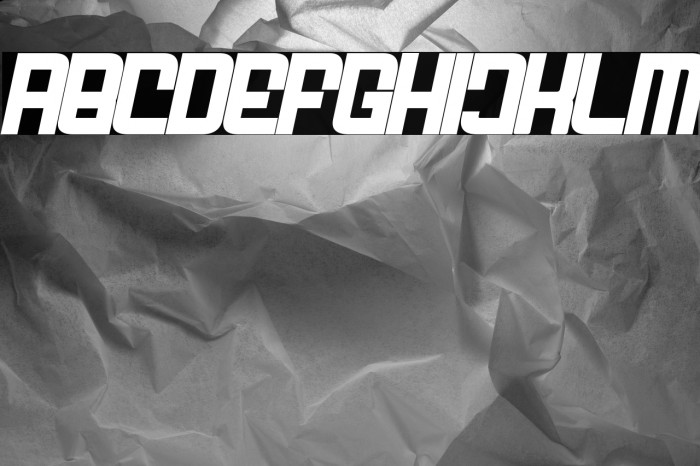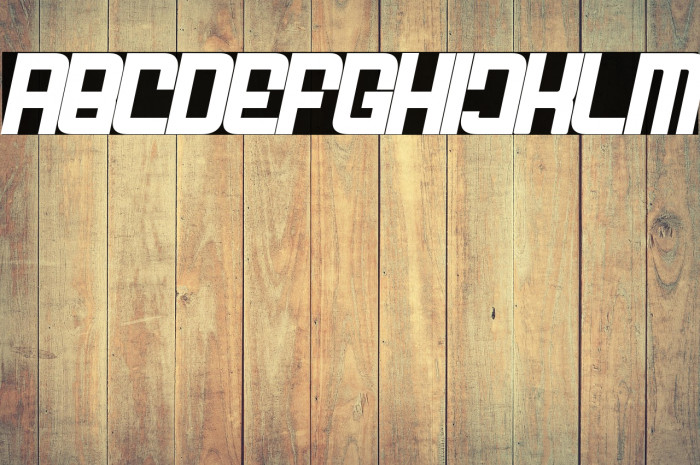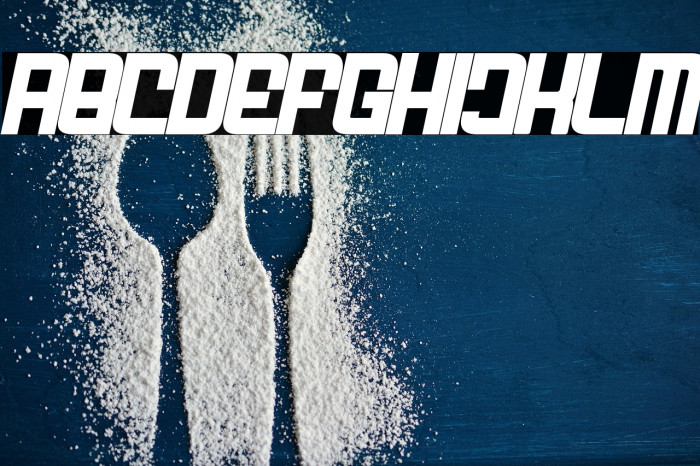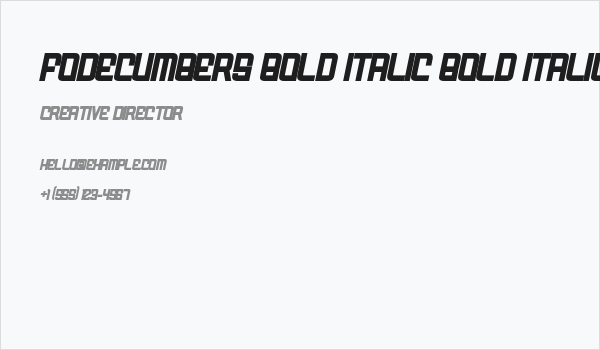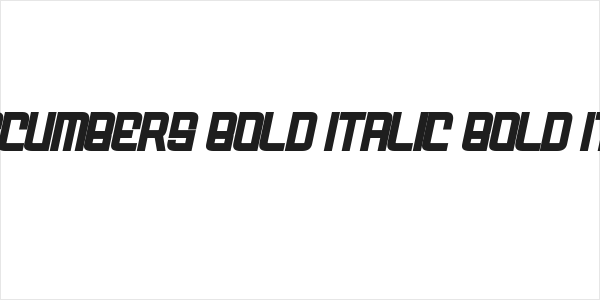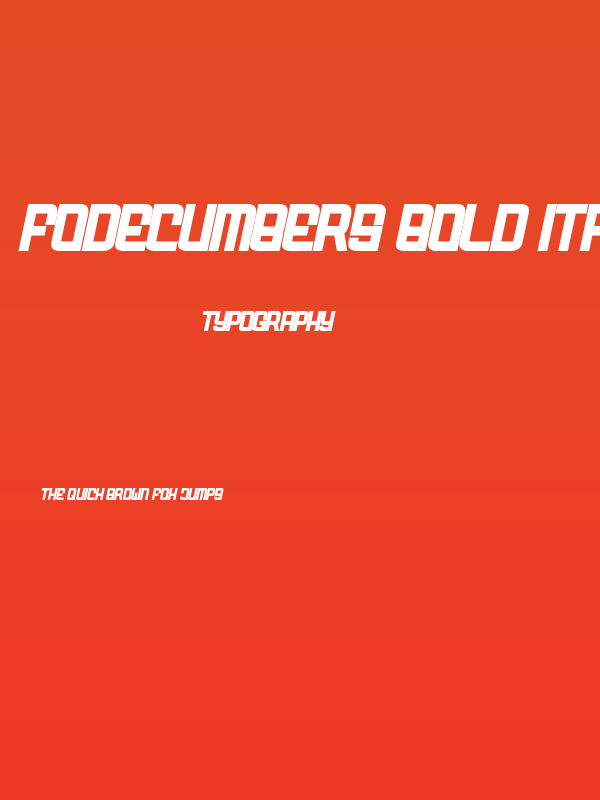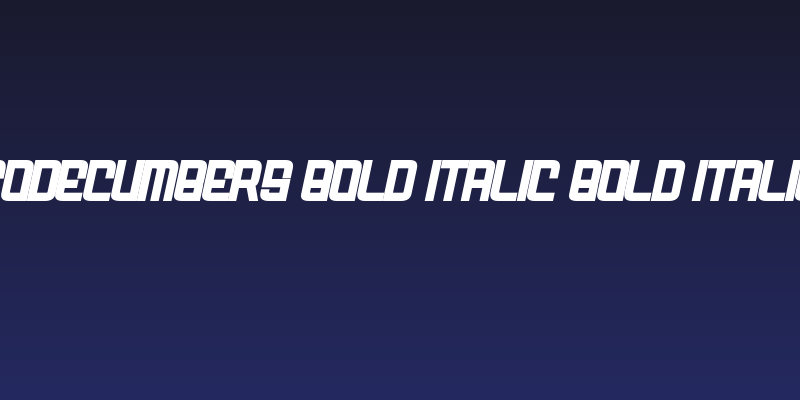
FODECUMBERS BOLD ITALIC Bold Italic Font
FODECUMBERS BOLD ITALIC Bold Italic Description
This font features a bold and italicized style with a strong, angular design. The characters are sharply defined with a futuristic and dynamic appearance, making them stand out prominently. The uppercase and lowercase letters maintain a consistent slant, enhancing the italic effect. The numbers and special characters follow the same design principles, ensuring uniformity across all glyphs. The font's geometric structure and bold weight give it a commanding presence, suitable for attention-grabbing headlines or impactful graphic designs.